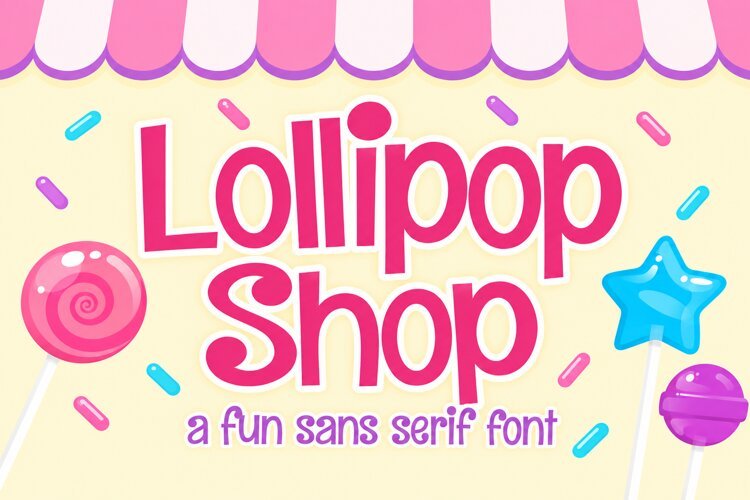
Lollipop Shop | Playful Sans Serif Font
Lollipop Shop is a bright, playful sans serif font with rounded letters and a sweet candy shop feel. Use it for party invitations, birthday cards, stickers, signs, and cheerful craft projects.